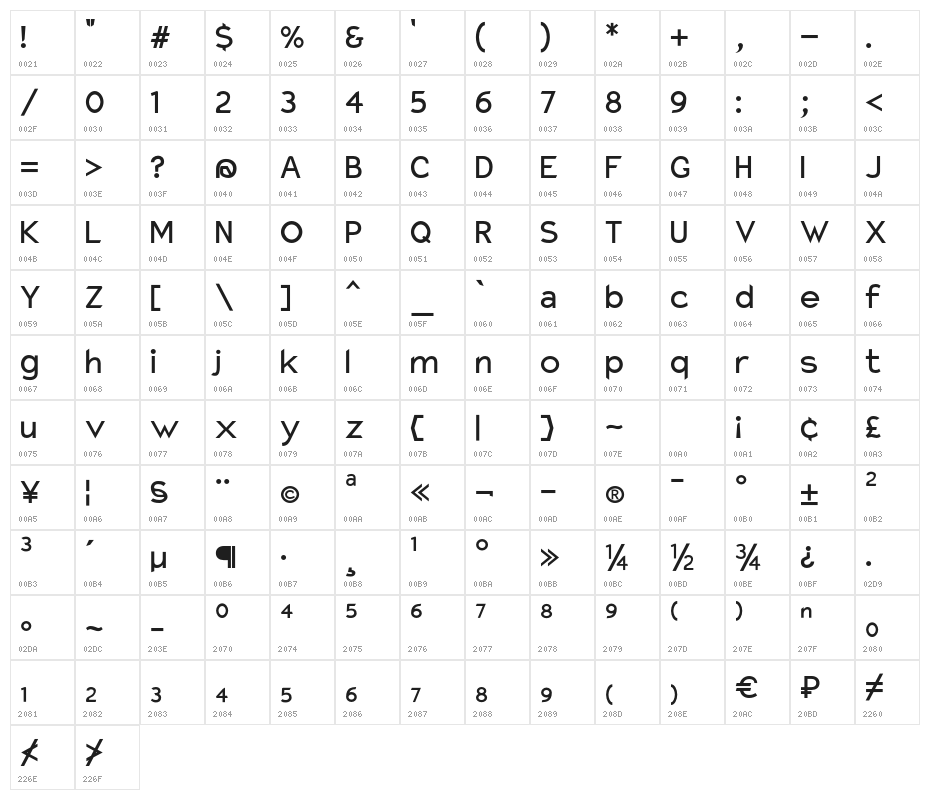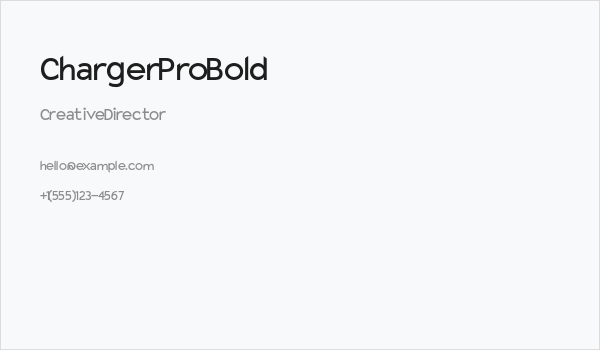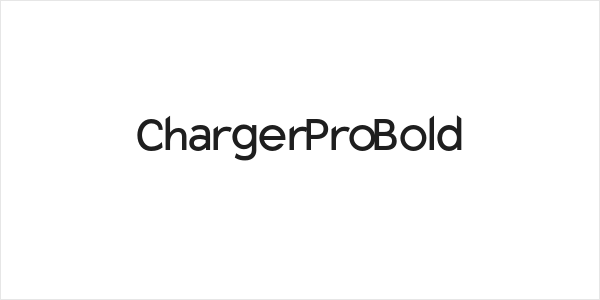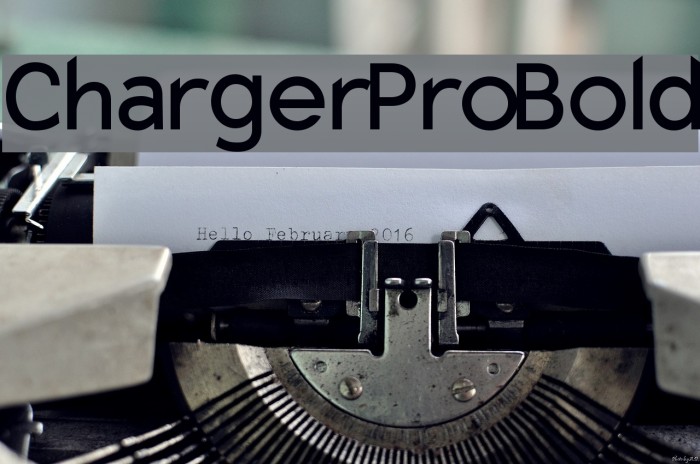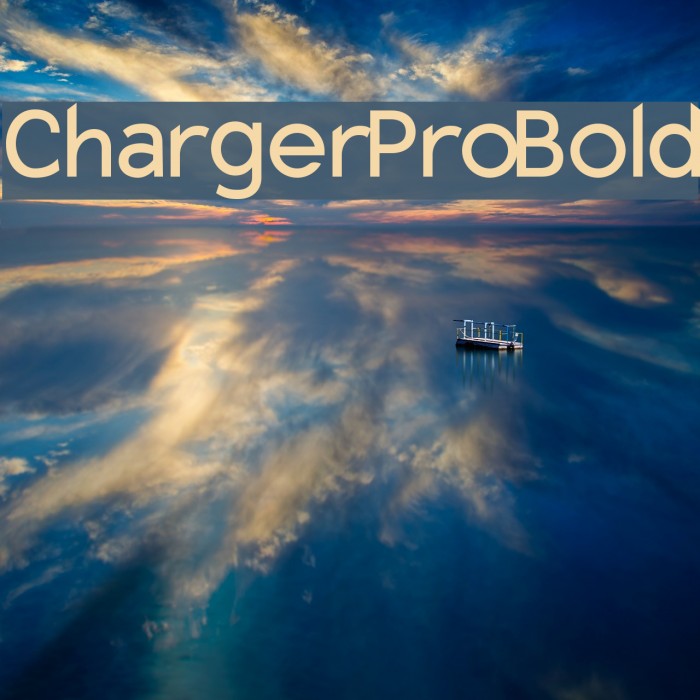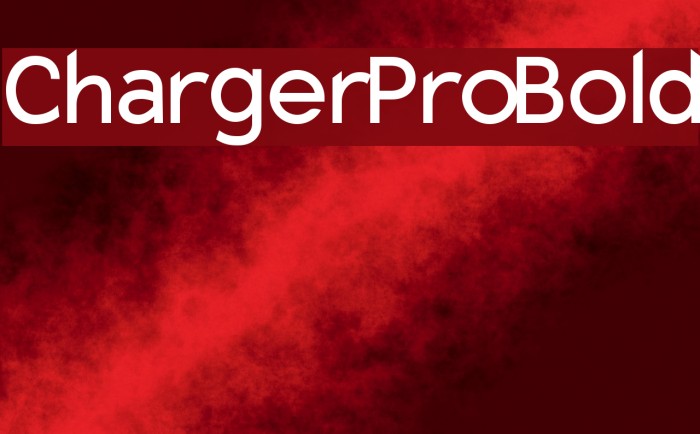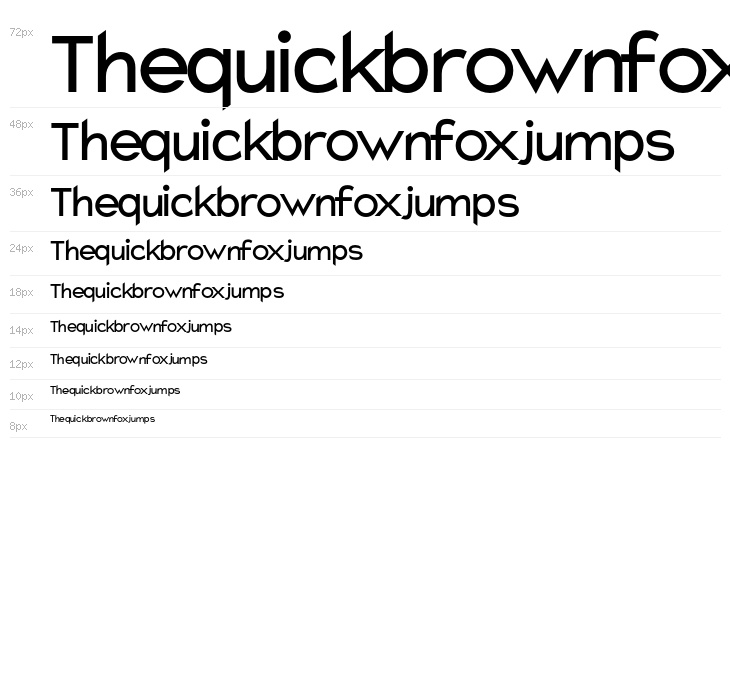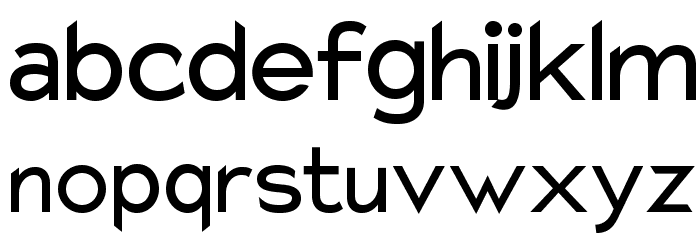
Charger Pro Bold Font
Charger Pro Bold Description
This font features a bold and modern sans-serif style with clean, geometric lines and uniform stroke widths. The uppercase and lowercase letters are well-proportioned, offering a harmonious balance that enhances readability. The numerals are clear and distinct, making them suitable for various applications. Special characters are included, maintaining the font's cohesive design. Its bold weight and straightforward design make it ideal for impactful headlines and branding projects.
| Proposed Projects | Ideal for branding, headlines, posters, and digital media where a strong, modern presence is desired. |